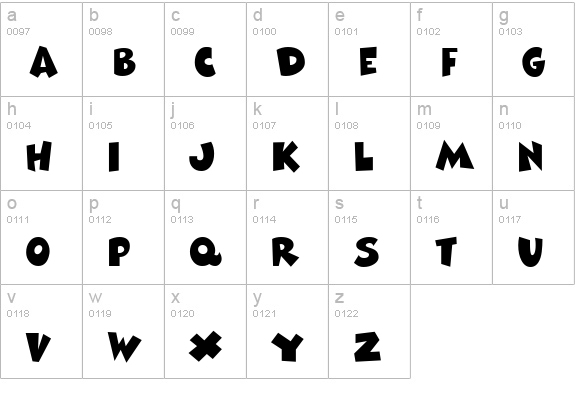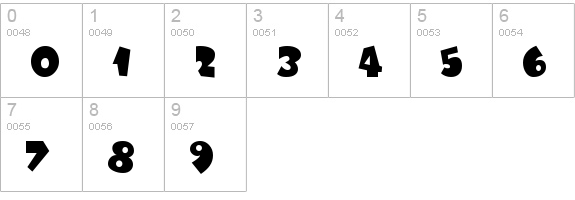
ComixHeavy Regular Font Details
ComixHeavy Regular is the standard, neutral variant in the ComixHeavy typeface family \xE2\x80\x94 well suited to general body text, paragraphs, and standard typographic work.
ComixHeavy Regular is a bold and eye-catching font that exudes a sense of strength and impact. Its thick, heavy lines make it perfect for headlines, posters, and other design projects that require a strong visual presence. This versatile font is sure to make a statement and capture the attention of your audience. Best of all, ComixHeavy Regular is available for free download at FontsMarket.com. Whether you're a designer looking to add a powerful touch to your work or a business owner in need of a bold font for branding materials, ComixHeavy Regular has you covered. Download it today and unleash its bold and impactful style in your projects.